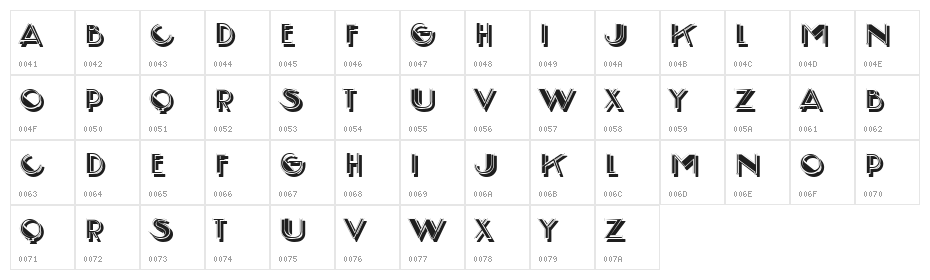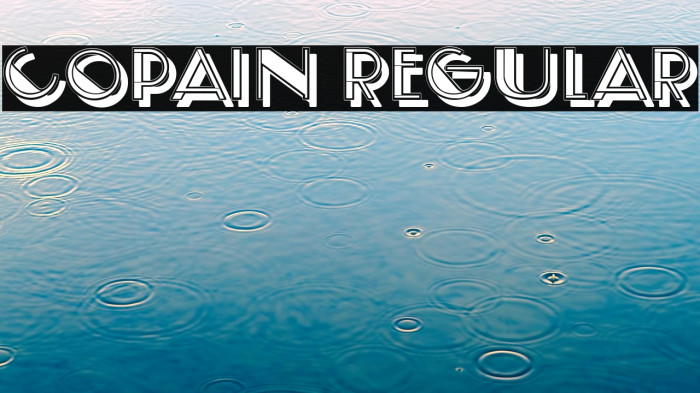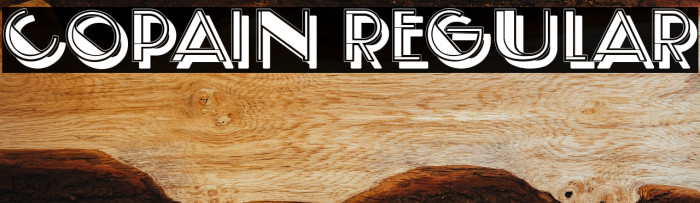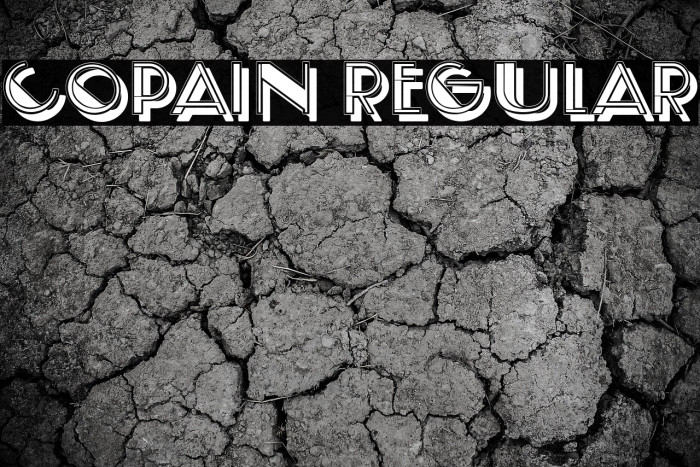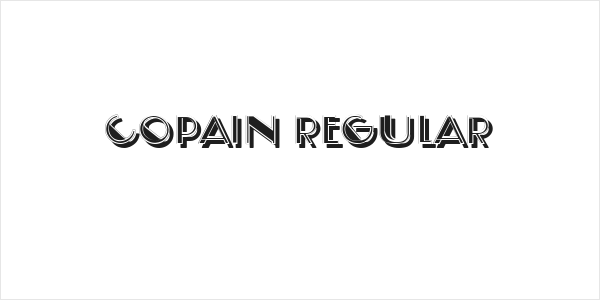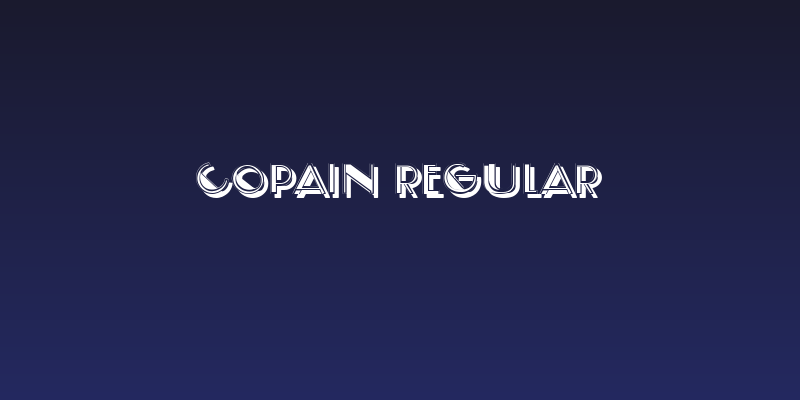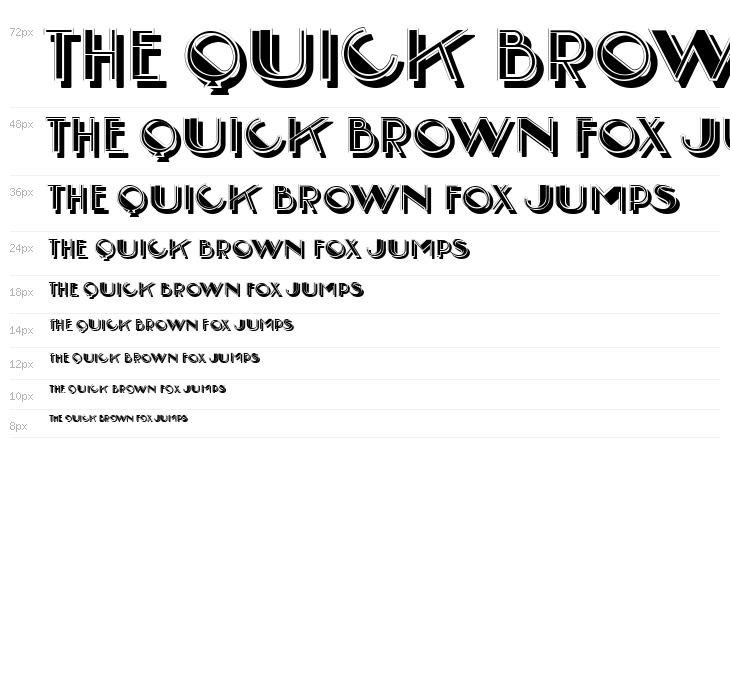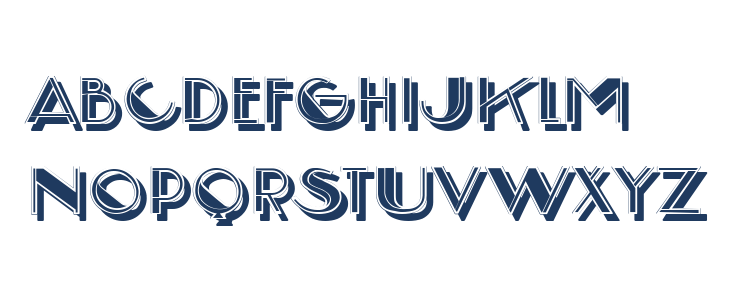
Copain Regular Font
Copain Regular Description
This font features a bold and striking design with a unique geometric style. The characters are constructed with sharp angles and clean lines, creating a modern and dynamic appearance. The use of shadowing and layering adds depth and a three-dimensional effect, making it stand out. The uppercase letters are particularly prominent, with a consistent height and width that ensures readability. The font's overall aesthetic is both contemporary and versatile, suitable for a variety of design applications. Its distinctive look makes it ideal for projects that require a bold statement.